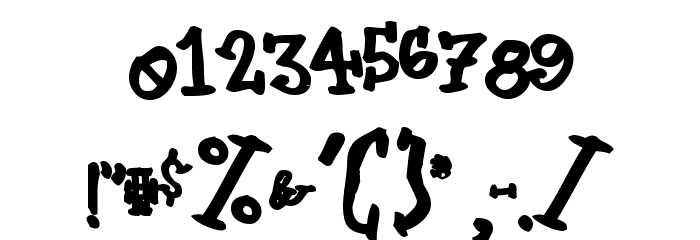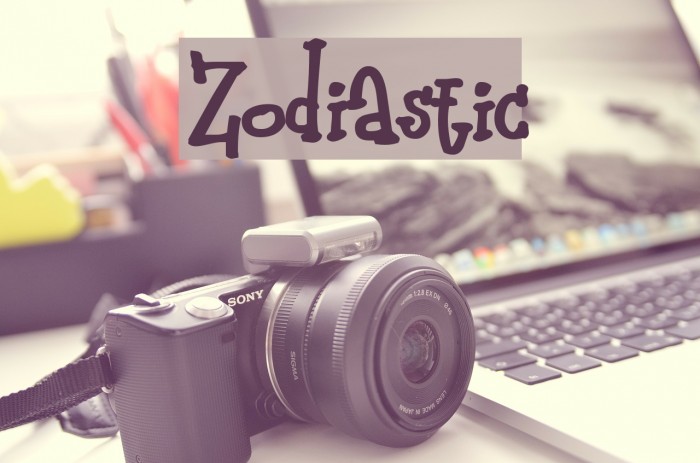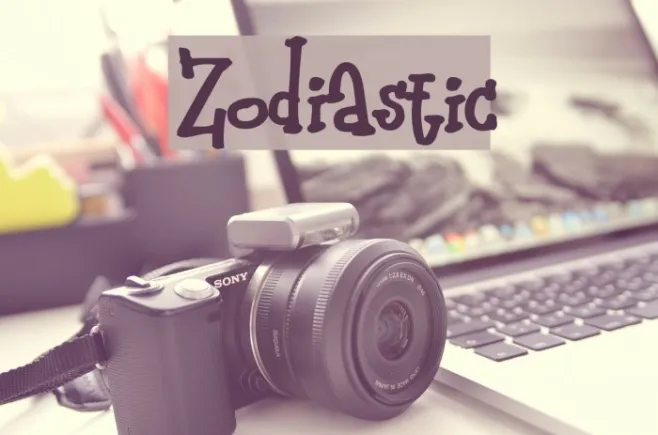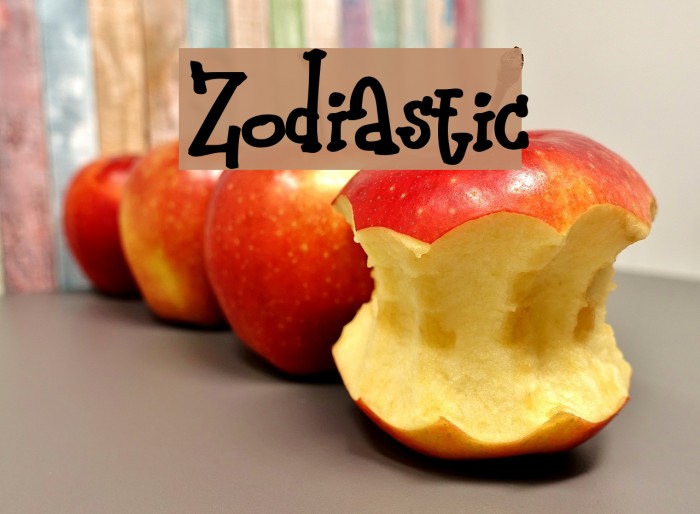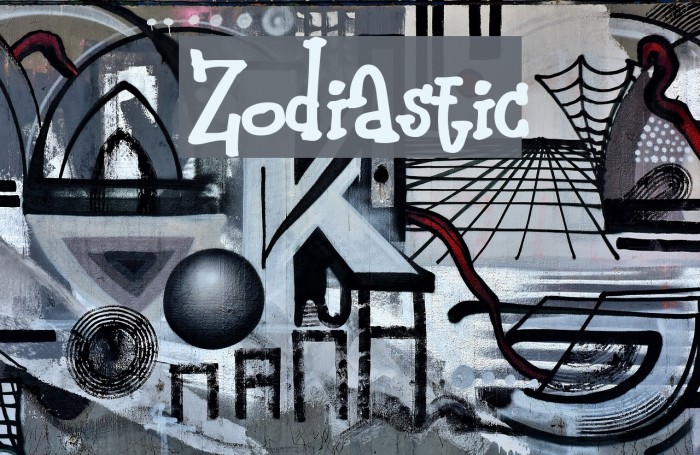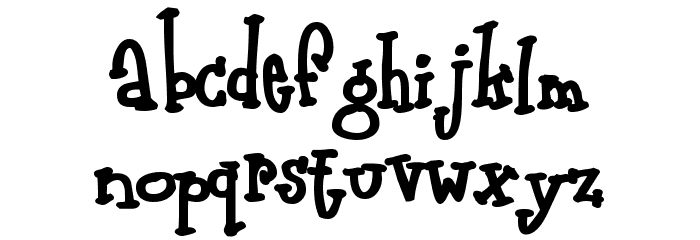
Zodiastic Font
Zodiastic Description
This font features a playful and whimsical design, characterized by its irregular and quirky letterforms. The strokes are bold and uneven, giving it a hand-drawn, artistic feel. The uppercase letters are tall and slightly narrow, while the lowercase letters maintain a consistent style with exaggerated curves and loops. Numbers and special characters follow the same playful theme, adding to the font's overall charm. The font's unique style makes it stand out, perfect for creative and informal projects.
| Overall Style | Playful, Artistic |
| Proposed Projects | Ideal for children's books, creative posters, playful branding, and artistic invitations. |